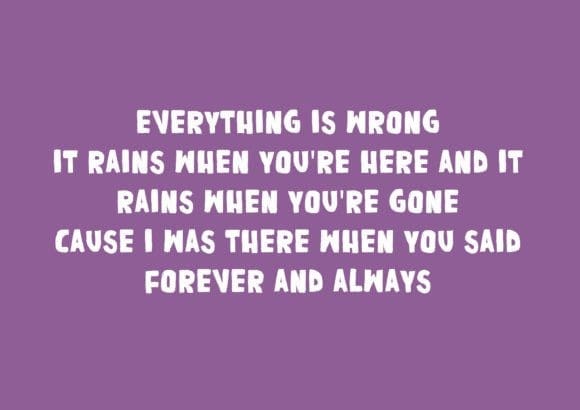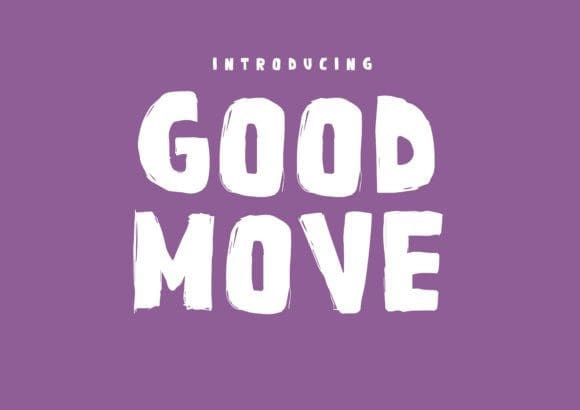
Good Move Font
Good Move Font, is a cool and playful display font. It is the best choice for creating eye-catching logos, branding, and quotes. Every letter has a unique and beautiful touch, which will make your designs come alive.